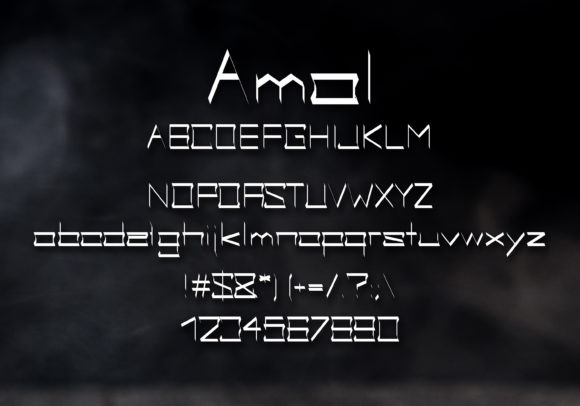
Introducing Amal Font: Elevate Your Designs with Geometric Elegance
Are you tired of using the same old fonts in your designs? Look no further than Amal Font, a unique and geometrically shaped display font that’s sure to take your creative projects to the next level. With its sleek lines, precise curves, and modern aesthetic, Amal Font is the perfect addition to any designer’s toolkit.
What is Amal Font?
Amal Font is a display font that boasts a distinctive geometric style, making it perfect for headlines, titles, and other design elements that require a touch of sophistication. Its unique shape and structure are sure to make your designs stand out from the crowd, whether you’re working on a logo, brochure, website, or social media graphics.
Key Features of Amal Font
- Geometric Shape: Amal Font’s geometric shape gives it a modern and sleek look that’s perfect for designs that require a touch of elegance.
- Unique Style: Unlike other fonts, Amal Font has a distinctive style that’s sure to make your designs stand out from the crowd.
- Display Font: Amal Font is specifically designed as a display font, making it perfect for headlines, titles, and other design elements that require a bold and eye-catching look.
- Easy to Read: Despite its unique shape, Amal Font is easy to read, making it perfect for designs that require both style and substance.
How to Use Amal Font in Your Designs
Amal Font is versatile and can be used in a variety of design projects, including:
- Logos: Use Amal Font to create a unique and memorable logo that reflects your brand’s personality.
- Brochures: Add Amal Font to your brochure design to give it a touch of sophistication and elegance.
- Websites: Use Amal Font as a display font on your website to draw attention to important information, such as headlines and calls-to-action.
- Social Media Graphics: Add Amal Font to your social media graphics to make them stand out from the crowd and grab the attention of your followers.
Tips for Getting the Most Out of Amal Font
To get the most out of Amal Font, here are a few tips to keep in mind:
- Use it sparingly: Amal Font is a bold and eye-catching font, so use it sparingly to avoid overwhelming your design.
- Pair it with other fonts: Amal Font pairs well with other fonts, so experiment with different combinations to find the perfect look for your design.
- Experiment with colors: Amal Font looks great in a variety of colors, so don’t be afraid to experiment and find the perfect color scheme for your design.
Amal Font is a unique and geometrically shaped display font that’s sure to elevate your designs to the next level. With its sleek lines, precise curves, and modern aesthetic, Amal Font is the perfect addition to any designer’s toolkit. Whether you’re working on a logo, brochure, website, or social media graphics, Amal Font is sure to make your designs stand out from the crowd. So why wait? Add Amal Font to your favorite creative ideas and notice how it makes them come alive!
- Choose the right size: Choose the right size for Amal Font, depending on the specific design project you’re working on.
- Experiment with different styles: Experiment with different styles and combinations of Amal Font to find the perfect look for your design.